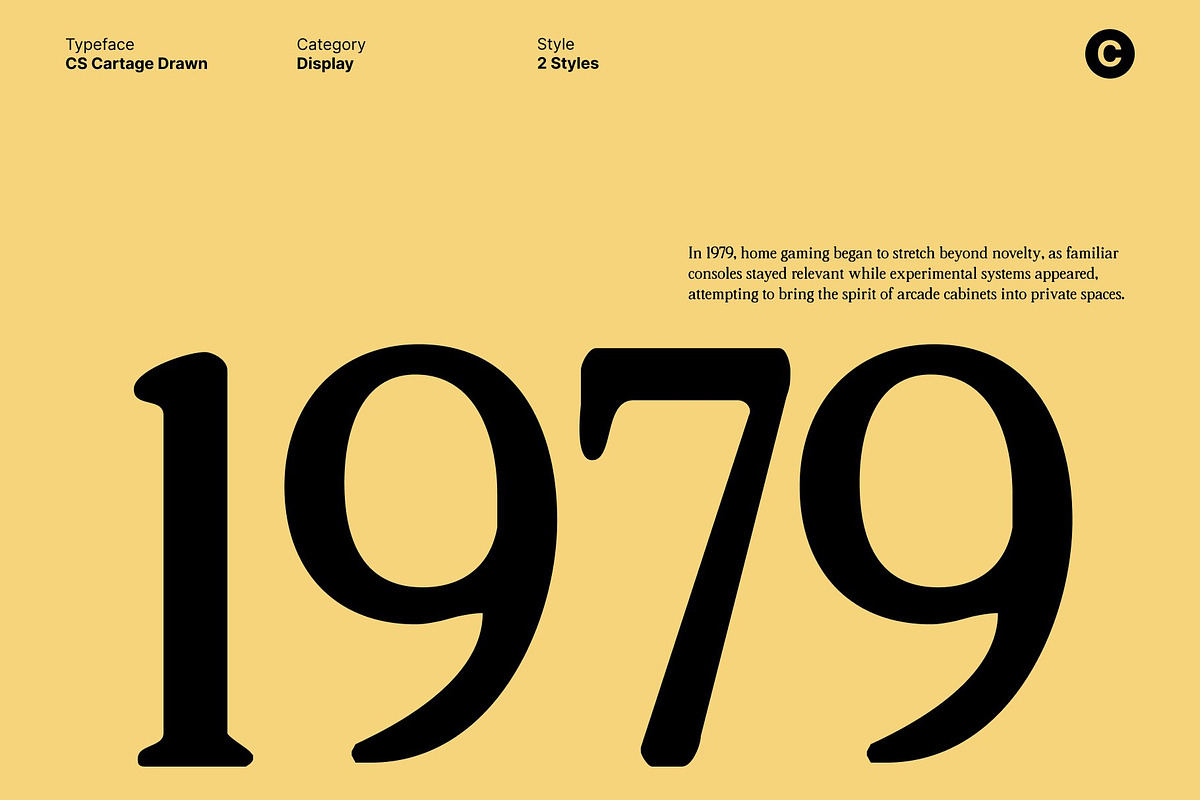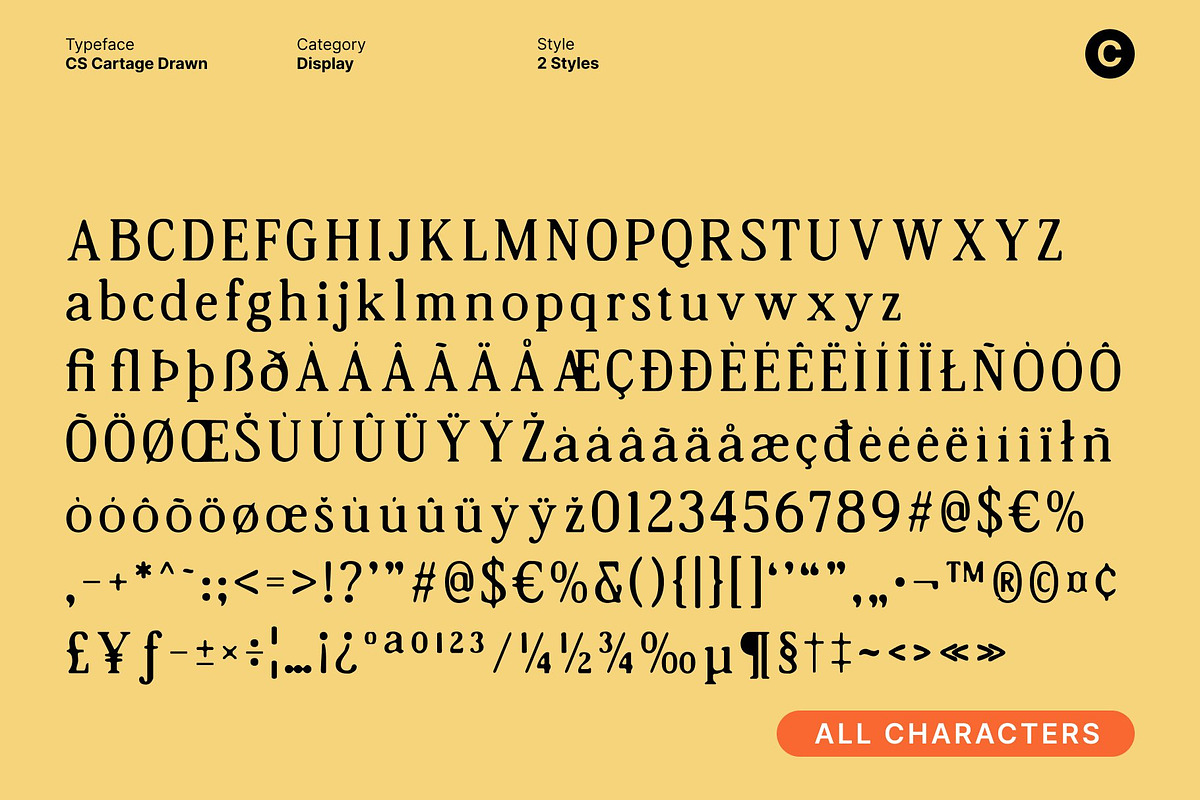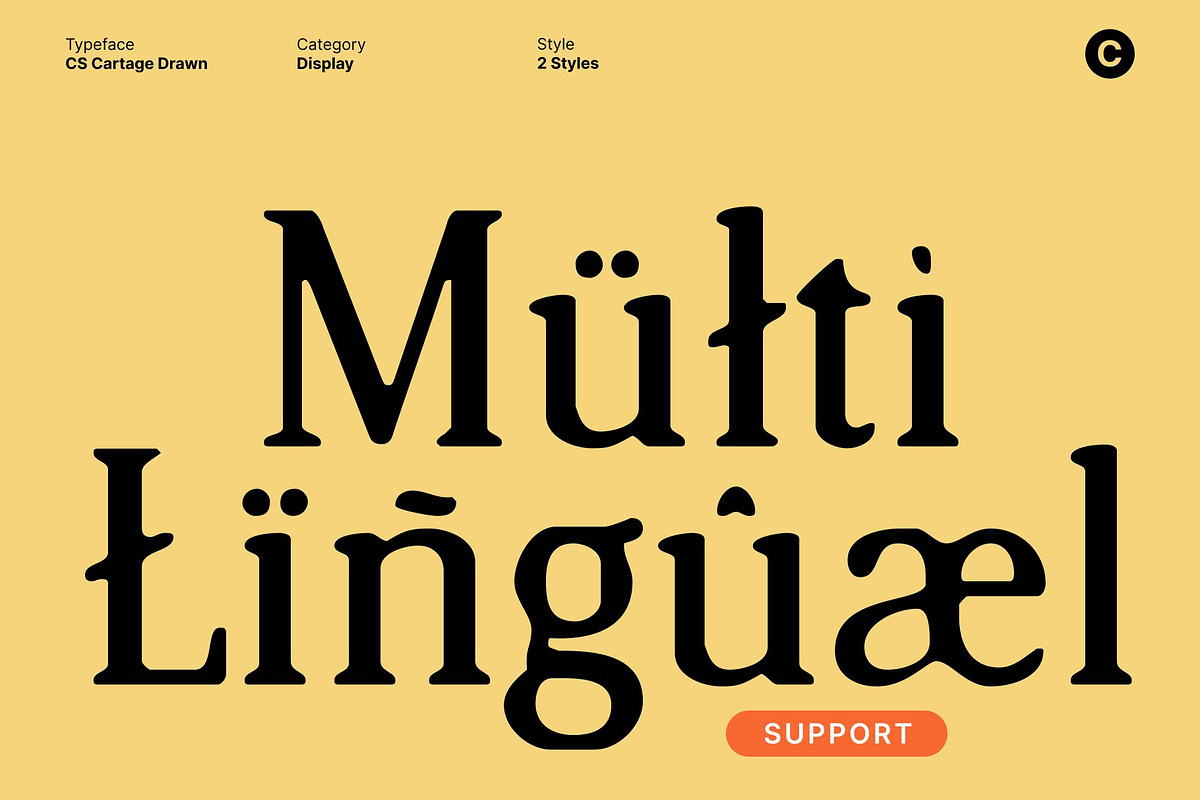
CS Cartage Drawn
CS Cartage Drawn – Vintage Display Font with Soft Artistic Texture
Nostalgic Vintage Display This is a charming display font inspired by vintage aesthetics found in old posters and classic retro signage. Its expressive letterforms instantly evoke a sense of nostalgia, bringing warmth and familiarity to any design. The font captures the spirit of traditional advertising and handcrafted typography, making it a strong choice for projects that celebrate timeless style and retro character.
Hand-Drawn Effect for Soft Artistic Texture The drawn effect adds a soft, artistic texture that enhances the font’s visual appeal. Subtle imperfections and organic strokes create a natural, handcrafted feel, giving each character a unique personality. This gentle texture softens the overall appearance, making the font feel approachable, authentic, and rich in artistic detail without overpowering the design.
Classic Character with Decorative Charm This font balances bold vintage forms with refined details, allowing it to stand out while remaining readable. Its decorative shapes and retro proportions make it suitable for headlines, logos, and display text that require a distinctive yet friendly presence. The font communicates character and charm, ideal for designs that want to feel personal and memorable.
Perfect for Branding, Events, and Packaging Designed for versatile use, this font works beautifully across branding, event materials, packaging, labels, and promotional designs. Its nostalgic tone and artistic texture help create a strong visual identity that feels handcrafted and genuine.